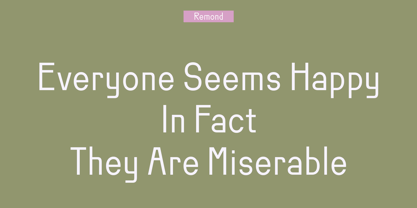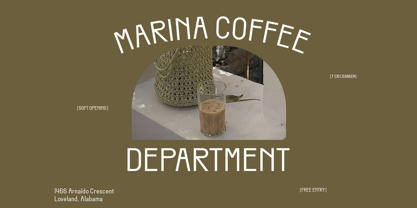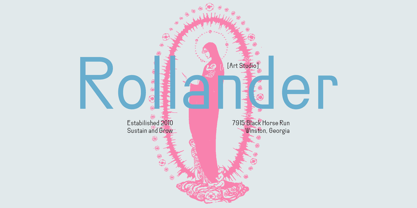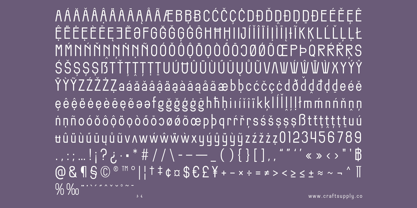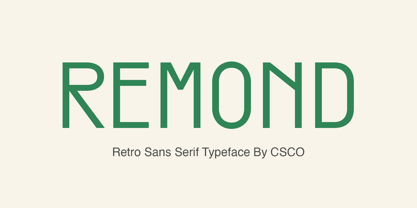
Remond
by Craft Supply Co
The Remond Font Family was designed by Trio Nazzar Saputra, Wahyu Hadi Yuana and published by Craft Supply Co. Remond contains 2 styles and family package options. More about this family
Introducing Remond, a retro sans serif typeface combines geometric structure to maintain a flashy look for display purposes. You want to make a greeting card or a package design, or even a brand identity, craft design, any DIY project, book title, poster, pop vintage design, retro design or any purpose to make your art/design project look pretty and trendy? Feel free to play with this typeface!
Designers: Trio Nazzar Saputra, Wahyu Hadi Yuana
Foundry: Craft Supply Co